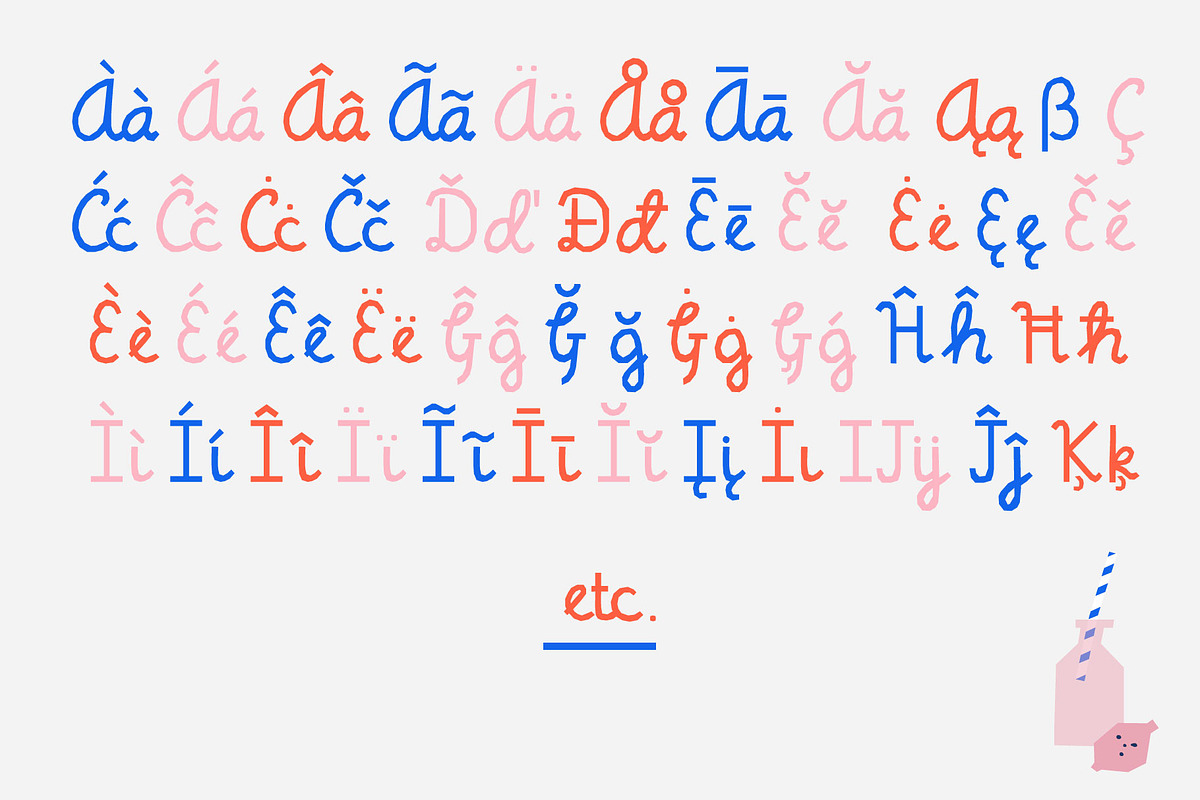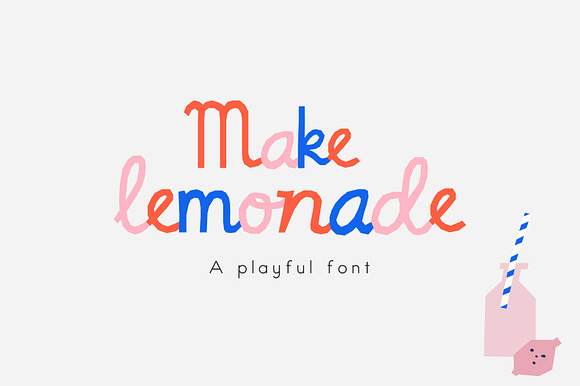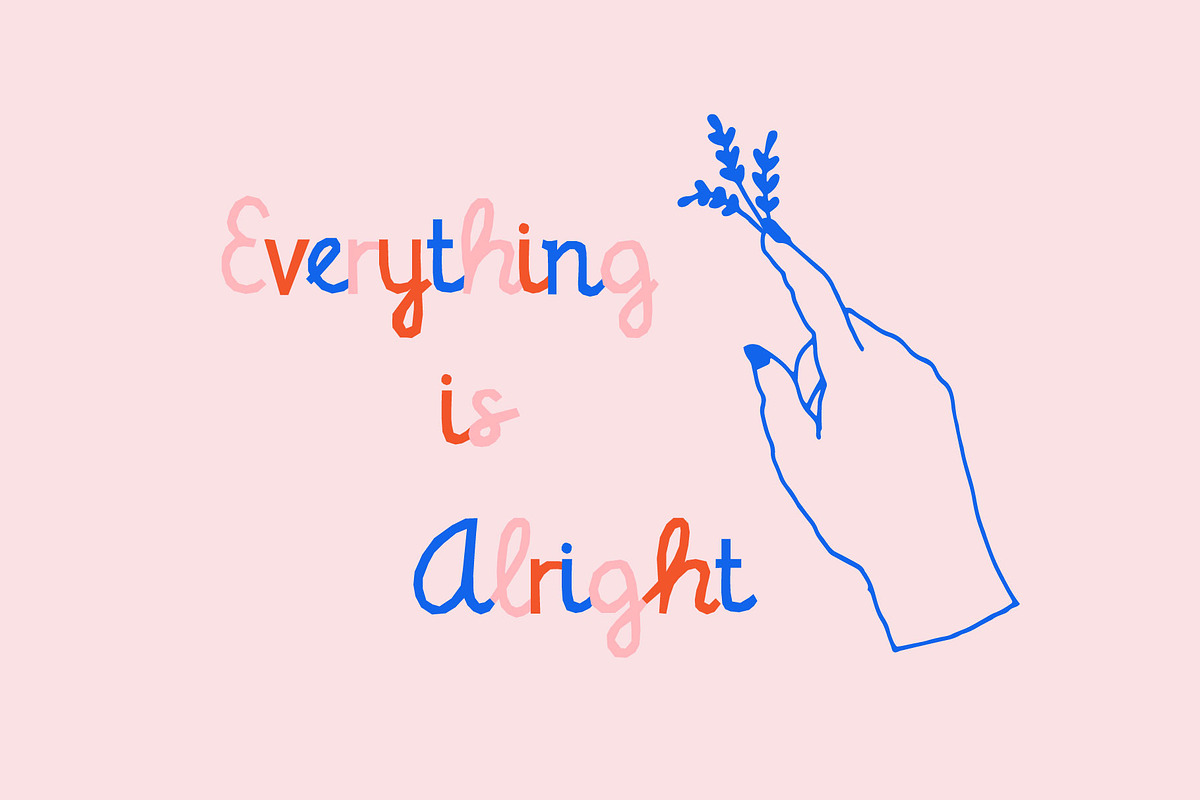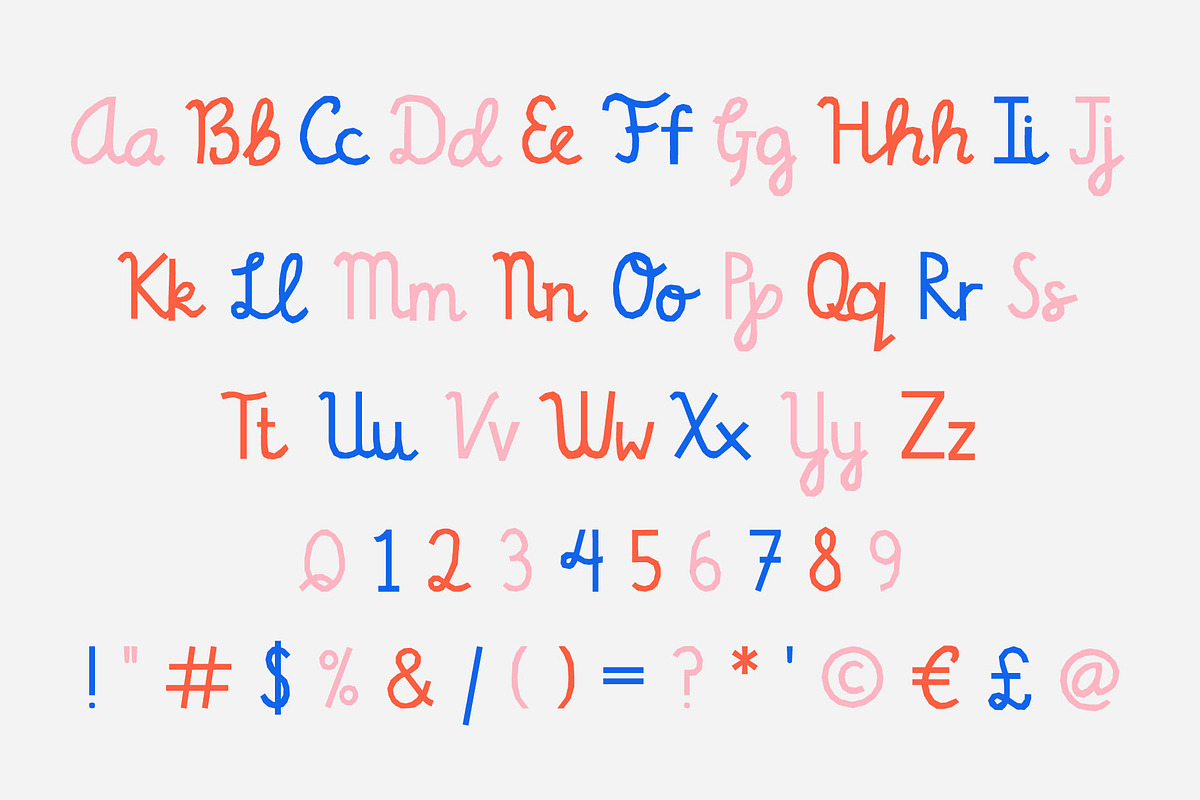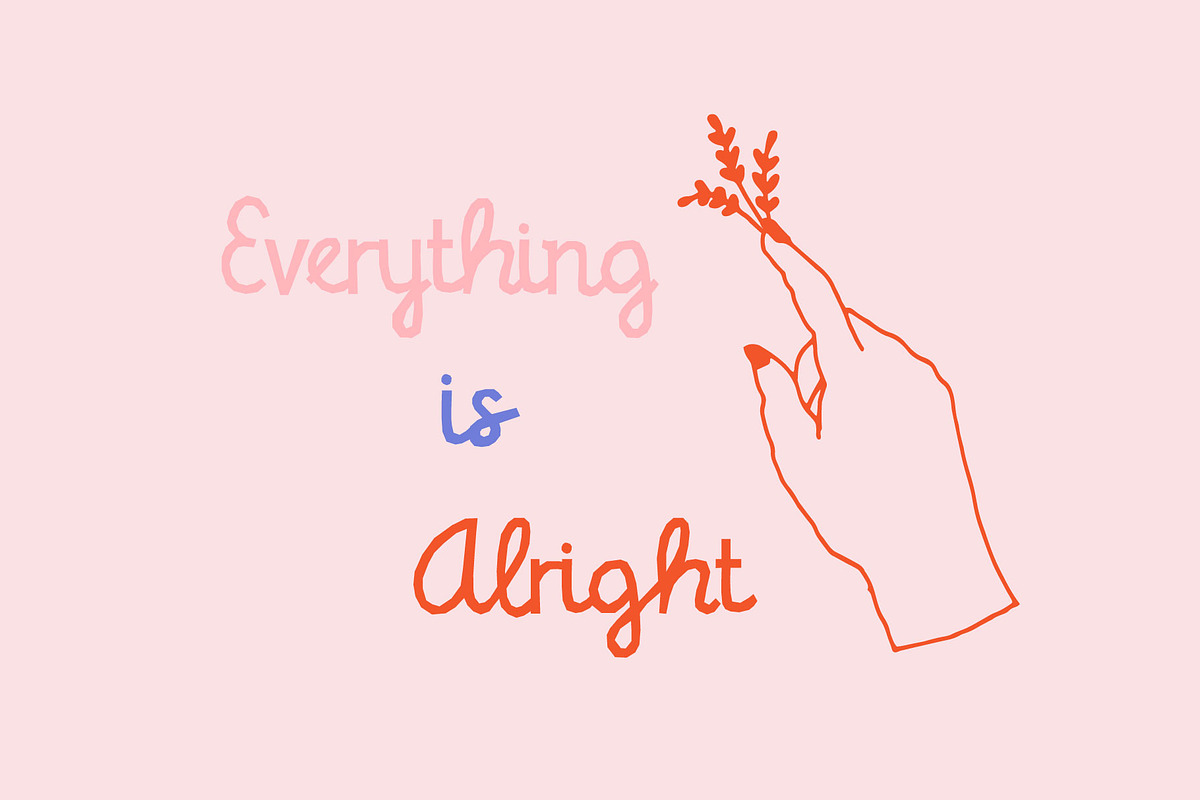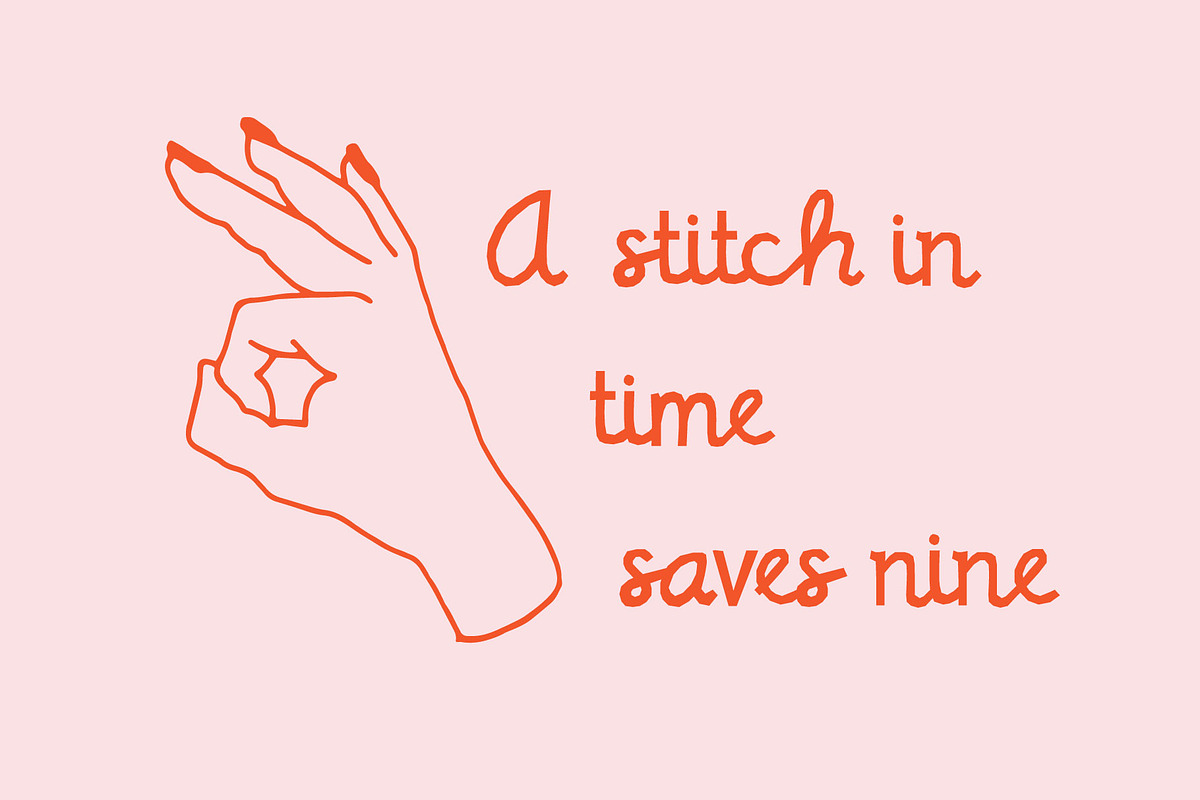
Make Lemonade Font
A characterful and playful cursive with a papercut feel. Use it for imperfect illustrations or simply art text. Perfect for children's books, posters and invites with a more childlike feel.
punctuation, symbols, numbers
Supports: Danish, Dutch, Finnish, Flemish, German, Icelandic, Irish, Italian, Norwegian, Portuguese, Spanish, Swedish, Basque, Breton, Catalan, Croatian, Czech, Esperanto, Estonian, French, Frisian, Hungarian, Latvian, Lithuanian, Polish, Provençal, Romanian, Sami, Slovenian, Sorbian, Turkish, Welsh, and many others